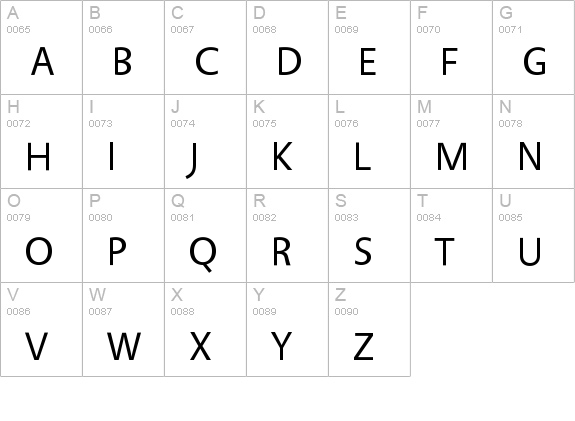
Vegur font is a stunning typeface that effortlessly blends elegance with versatility. Its clean and modern design makes it the perfect choice for a wide range of creative projects, from branding and logo design to website headers and printed materials. With its balanced letterforms and subtle geometric influence, Vegur font exudes a sense of sophistication and professionalism. One of the most appealing aspects of Vegur font is that it is completely free. Yes, you read that right – this remarkable typeface can be downloaded at absolutely no cost. Thanks to FontsMarket.com, you can easily access and enjoy the beauty of Vegur font without breaking the bank. With its extensive character set, Vegur font supports multiple languages, making it a versatile option for international projects. Whether you need to communicate in English, French, Spanish, or beyond, Vegur font has you covered. Its legibility and clarity ensure that your message will be effectively conveyed to readers all around the world. Vegur font is not just visually appealing, but also highly functional. Its well-balanced proportions, clear spacing, and elegant curves contribute to an exceptional reading experience. Whether used in small paragraphs or large headlines, Vegur font remains effortlessly readable, making it an excellent choice for both digital and print media. In addition to its exceptional design and functionality, Vegur font also offers a range of font weights, from light to bold, allowing you to add depth and emphasis to your designs. This versatility makes Vegur font an ideal choice for creating eye-catching headlines or incorporating subtle variations within your typography. So, if you're looking for a high-quality, versatile font that won't cost you a dime, look no further than Vegur font. Simply head over to FontsMarket.com, where you can freely download this exceptional typeface and unleash your creativity without any limitations.